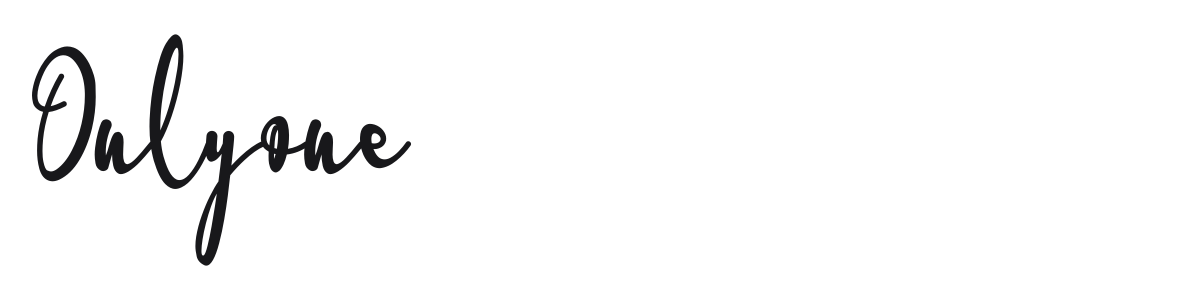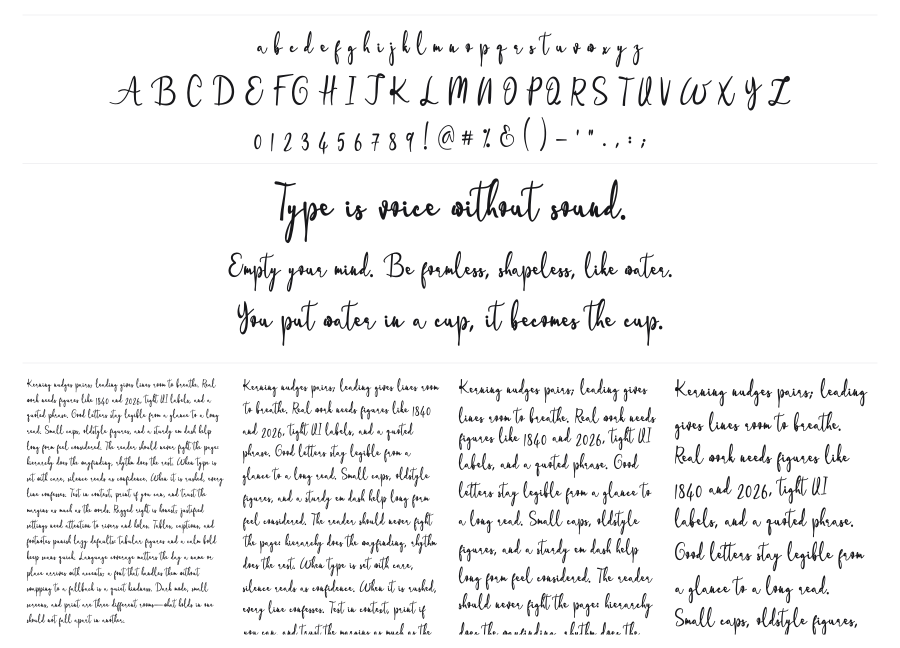
Onlyone
Onlyone is a casual connected script with a lively, bouncy baseline and fluid pen-like strokes. The moderate stroke contrast and natural tapering give it an authentic handwritten quality without feeling rough or unpolished. It sits comfortably in branding, packaging, and editorial contexts where warmth and personality are the goal.